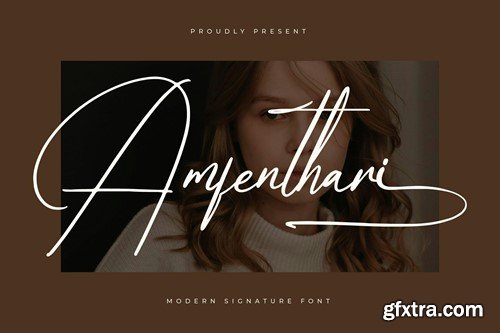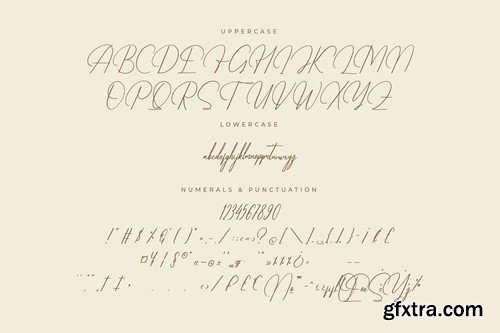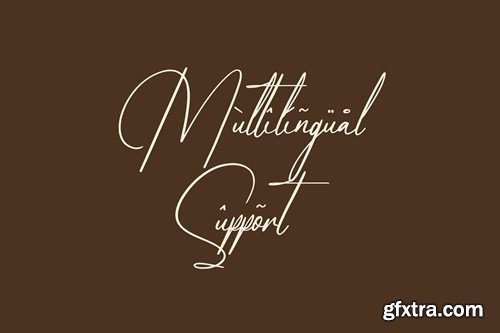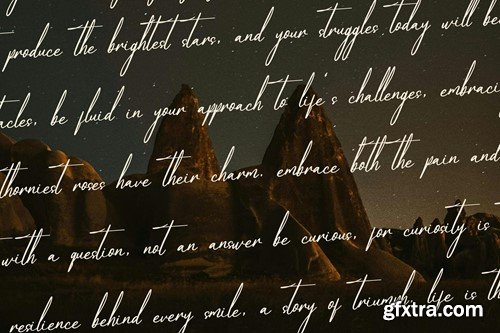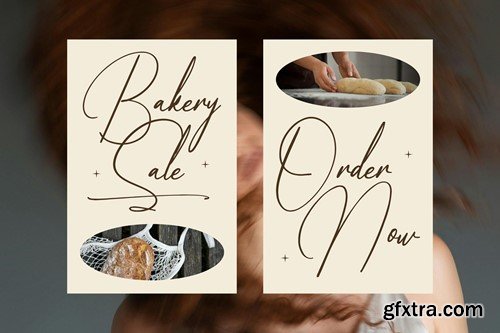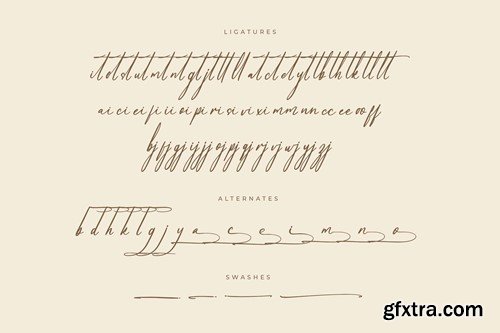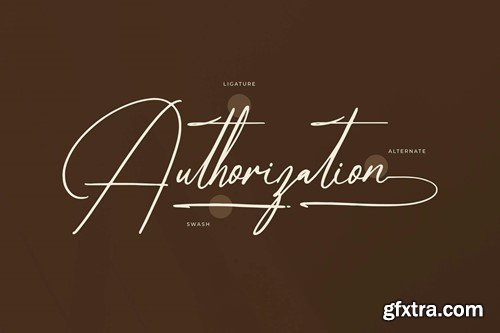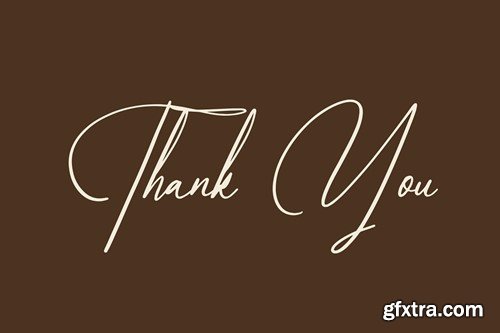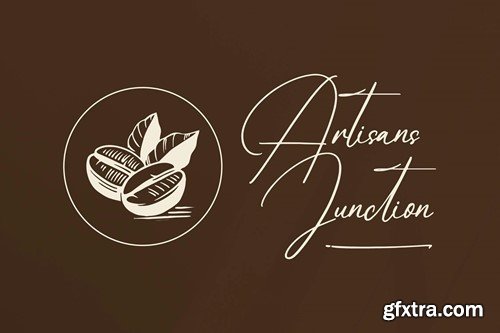
阿姆芬塔里现代签名字体 TMLLZAE
Amfenthari Modern Signature Font TMLLZAE
Amfenthari Modern Signature Font
Hi ladies & gentlemen, this is one of our fonts suitable to complement your digital and printed creative products. This font is perfect for posters, social media posts, branding, personal projects, etc.